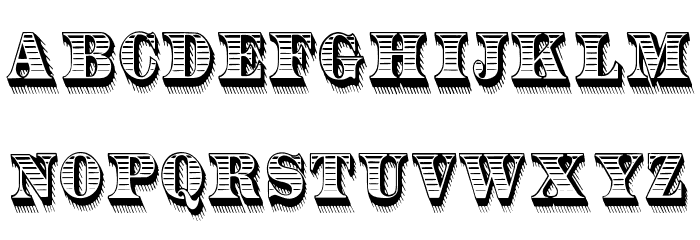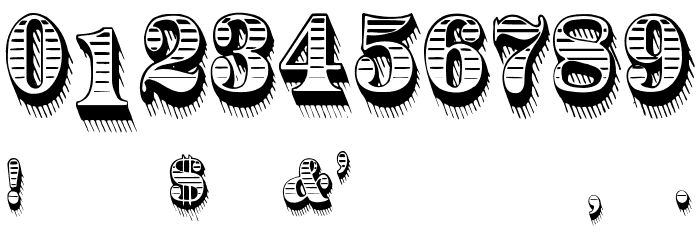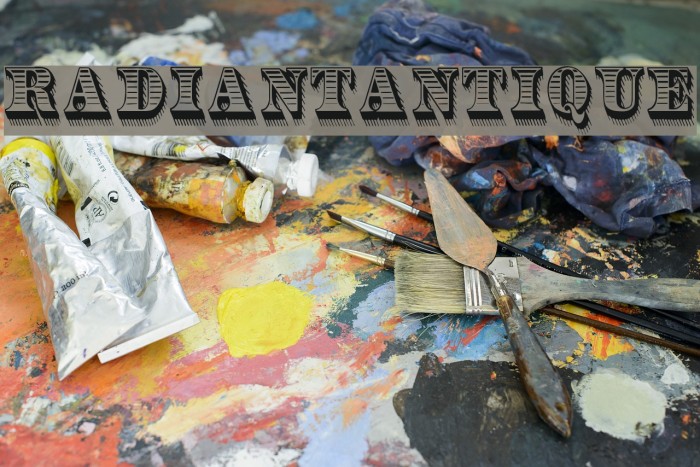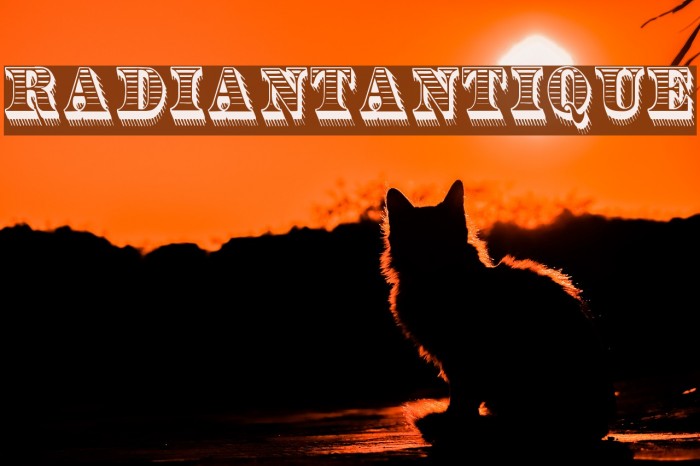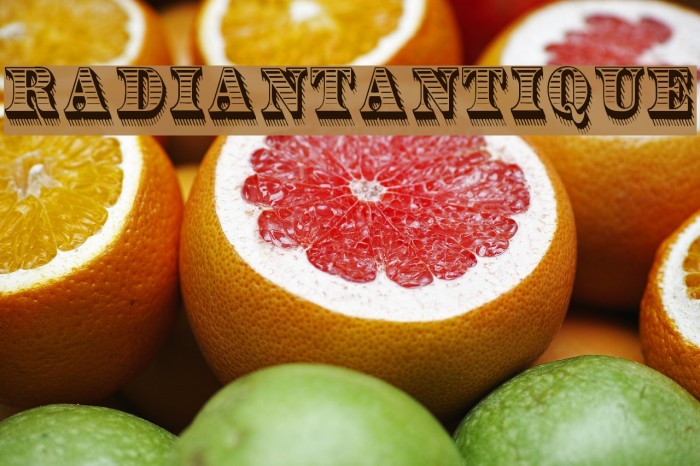
RadiantAntique Font
This font features a bold, decorative style with a vintage flair. Each character is designed with a three-dimensional effect, incorporating shadowing and intricate line work that gives it a distinct, eye-catching appearance. The uppercase and lowercase letters maintain a consistent design, with the uppercase being more prominent and the lowercase slightly more compact. The numerals are equally bold and decorative, matching the style of the letters. Special characters are included, each with the same detailed design. The font's overall aesthetic is reminiscent of classic signage or poster typography, making it ideal for projects that require a touch of nostalgia or a bold statement.
A bold, decorative font with vintage, three-dimensional styling.
- Proposed Projects: Ideal for vintage-themed posters, signage, branding, and packaging designs.
- Overall Style: Vintage